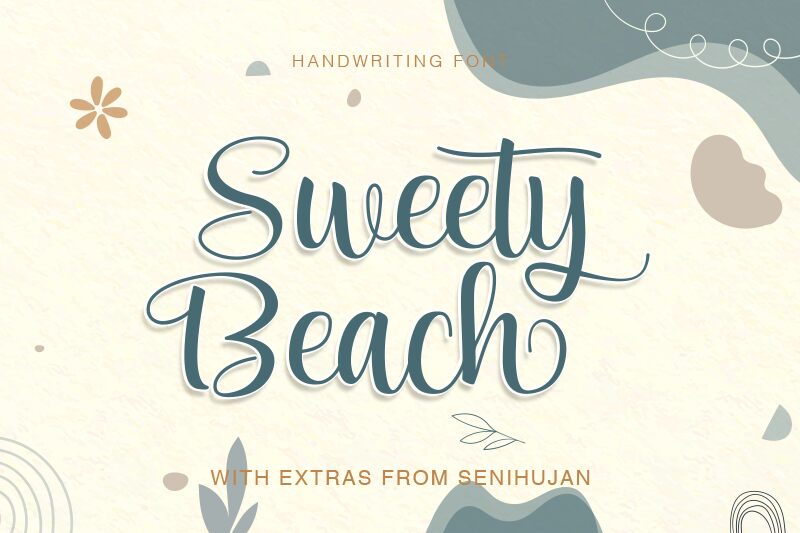
Sweety Beach is a stunning semi-light calligraphy font designed by Senihujan Studio. This font adds a touch of elegance to any project with its delicate curves and flowing lines. Sweety Beach is perfect for wedding invitations, greeting cards, branding, and social media graphics. Its unique style gives the text a personalized touch that stands out from the crowd. The semi-light font weight adds to the airy feel of this beautiful typeface, making it ideal for summer-themed designs or beach-related projects. Add some sweetness to your next project with Sweety Beach!